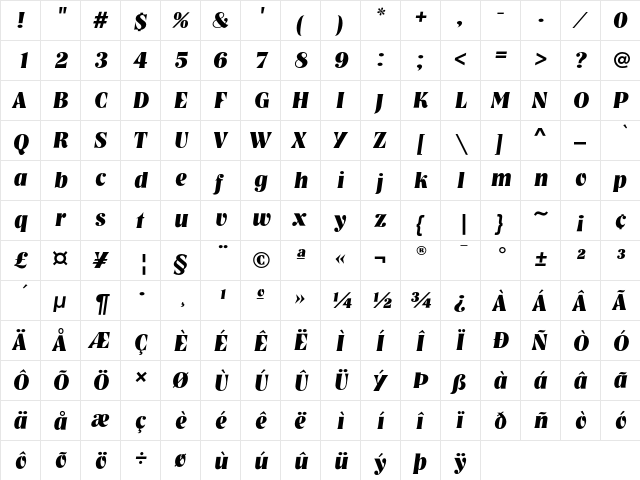
NashvilleEF BoldItalic Font Preview
NashvilleEF BoldItalic
Design Context for NashvilleEF Typeface
NashvilleEF is a composed and adaptable typeface that performs quietly and consistently across a wide range of design contexts. Its italic angle brings a sense of urgency and motion to the letterforms. The heavy weight commands attention and anchors typographic hierarchies.
Pro Tip: Use NashvilleEF for emphasis, pull quotes, and subheadings where its slanted energy can add rhythm to the layout.